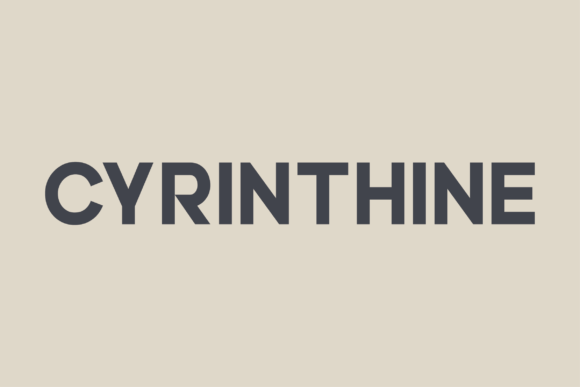
The Perfect Font to Elevate Your Creative Vision
Have you ever been in the middle of a design project, pouring your heart and soul into it, only to feel like something’s missing? The words, the images, the colors – everything seems to be in place, but it just doesn’t feel complete. That’s when you remember the power of a great font. A single, well-chosen font can transform your entire design and make it truly shine.
That’s where the Cyrinthine Font comes in – a versatile, modern, and classy sans serif font that’s perfect for a wide range of creative projects. Whether you’re designing a logo, wedding invitation, or advertisement, Cyrinthine Font is the perfect addition to bring your ideas to life. Its sleek and sophisticated design makes it a valuable tool for designers looking to elevate their work and leave a lasting impression.
Cyrinthine Font Key Features
- Unique Characteristics: Cyrinthine Font features a distinctive, modern design with subtle nuances in letterforms, giving it a unique aesthetic that sets it apart from other fonts.
- Font Metrics: The font has carefully crafted metrics, ensuring optimal readability and visual harmony, whether used for body text or headlines.
- Scalability: Cyrinthine Font is designed to be highly scalable, maintaining its legibility and aesthetic appeal even at small font sizes, making it ideal for digital applications.
Cyrinthine Font Review
I’ve had the chance to work with Cyrinthine Font and here’s my honest take. ✨ One thing that stands out is the elegant and refined aesthetic it brings to any project. The subtle flair on the curves and lines gives it a sophisticated feel that’s perfect for luxury or high-end branding.
Another aspect that I appreciate is the wide range of weights and styles available. ✨ From thin and delicate to bold and dramatic, Cyrinthine Font offers a versatile set of options that cater to various design needs. The italic and condensed styles are particularly useful for creating visually appealing headings and titles.
However, there are some limitations to consider: ⚠️ The font may not be the best choice for body text, as it can be a bit too ornate and overwhelming when used extensively. Additionally, the font’s complex structure can lead to compatibility issues with certain software or platforms.
Key Points:
- ✨ Elegant and refined aesthetic
- ✨ Wide range of weights and styles
- ⚠️ Not ideal for body text
- ⚠️ Potential compatibility issues
Overall, Cyrinthine Font is a great choice for projects that require a touch of sophistication and luxury. While it may not be suitable for every design task, it’s a valuable addition to any designer’s toolkit.
Tips for Getting the Most Out of Cyrinthine Font
1. Use Cyrinthine Font for titles and headings to add a touch of elegance.
2. Pair Cyrinthine Font with a bold font for a striking contrast.
3. Experiment with different font sizes and styles to create visual interest.
Cyrinthine Font is ideal for:
2. Luxury branding and packaging.
3. High-end marketing materials and advertising.
Alternatives to Cyrinthine Font
Playfair Display is a luxurious, high-end font that is perfect for use in branding, packaging, and other high-end design applications. It features intricate details and a classic feel, making it a great alternative to Cyrinthine Font for designers looking to add a touch of sophistication to their designs.
Compared to Cyrinthine Font, Playfair Display is more ornate and luxurious, with a more traditional feel. While Cyrinthine Font is a bit more modern and sleek, Playfair Display is a better choice for designers who want to create a classic, high-end look.
For optimal readability, we recommend using the Cyrinthine Font at a minimum font size of 12pt and a line height of 1.5 to 2 times the font size. This will ensure the text is legible and visually appealing in most design contexts.